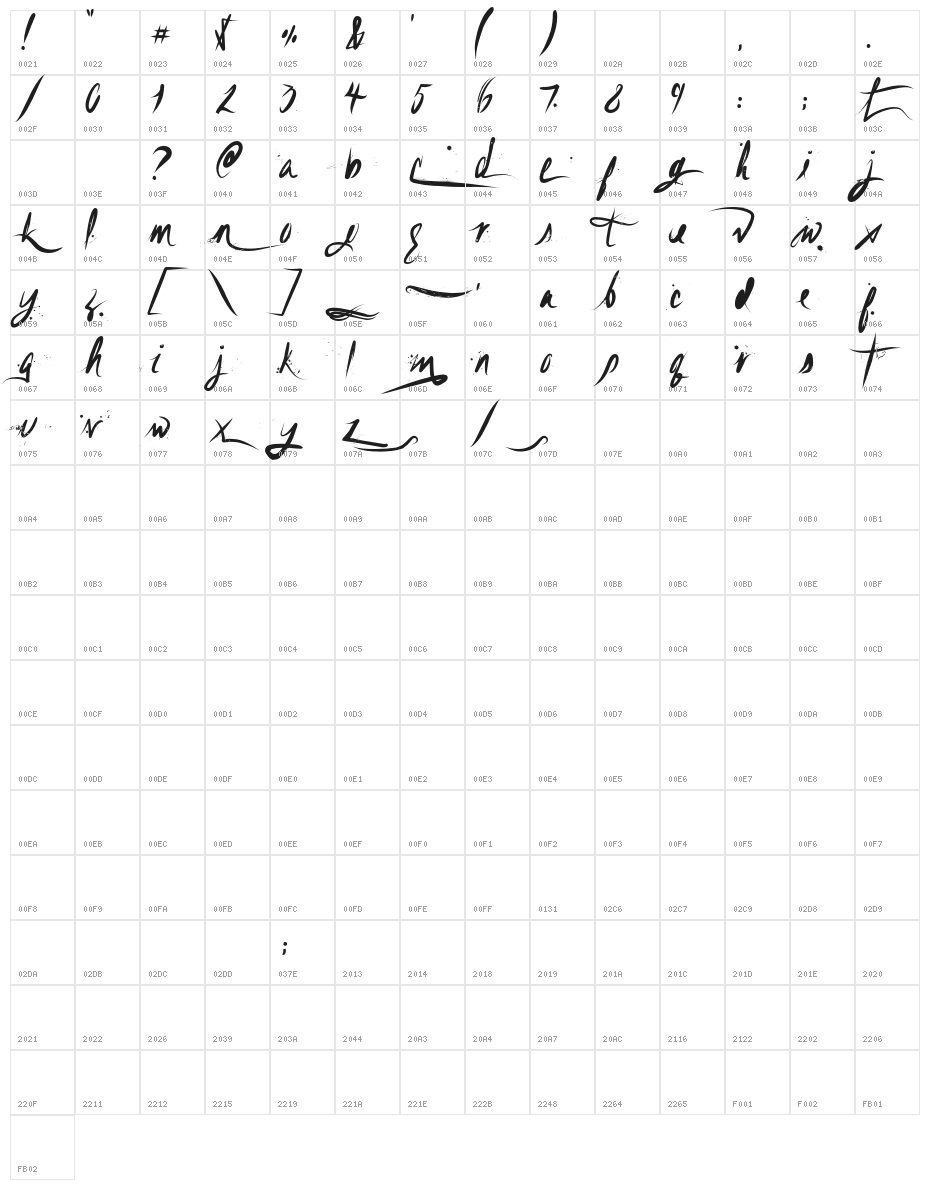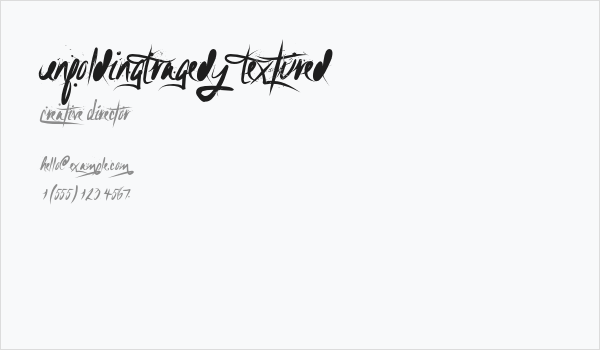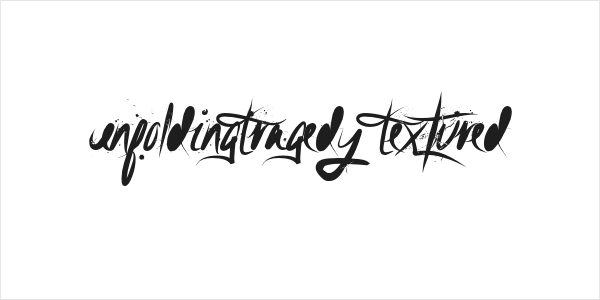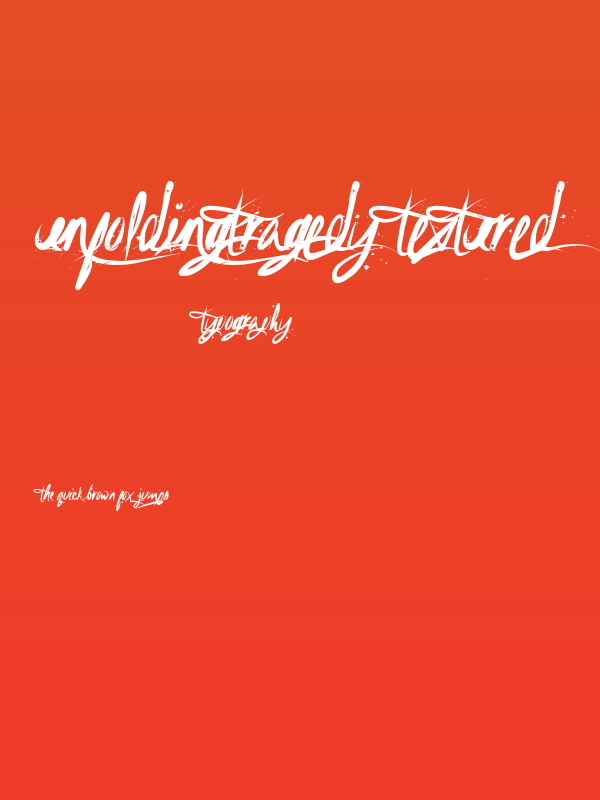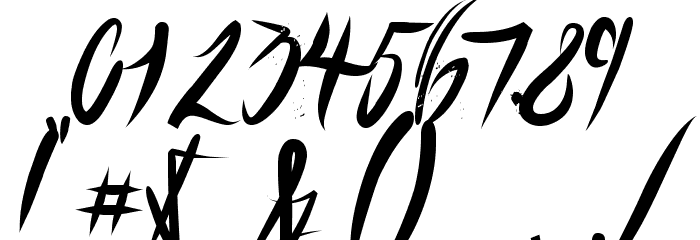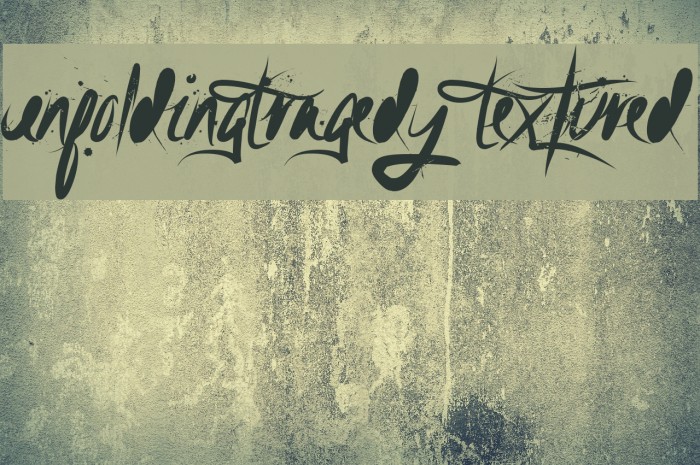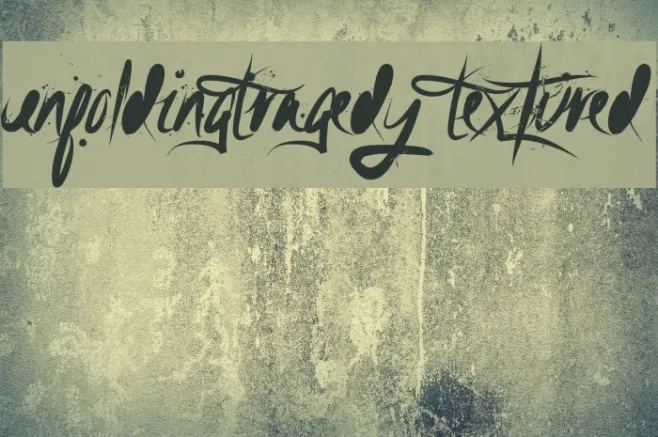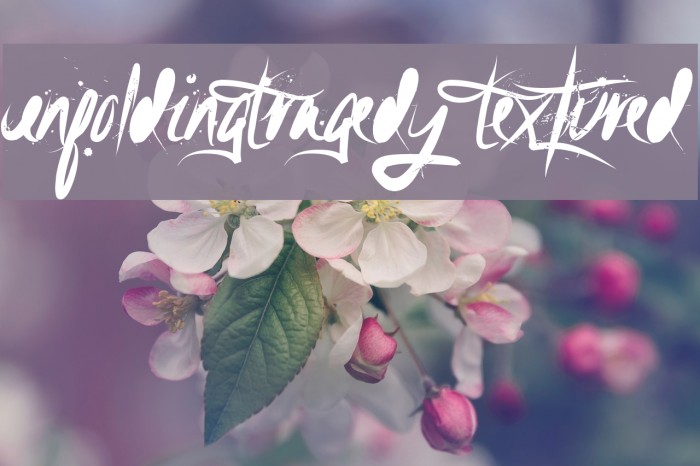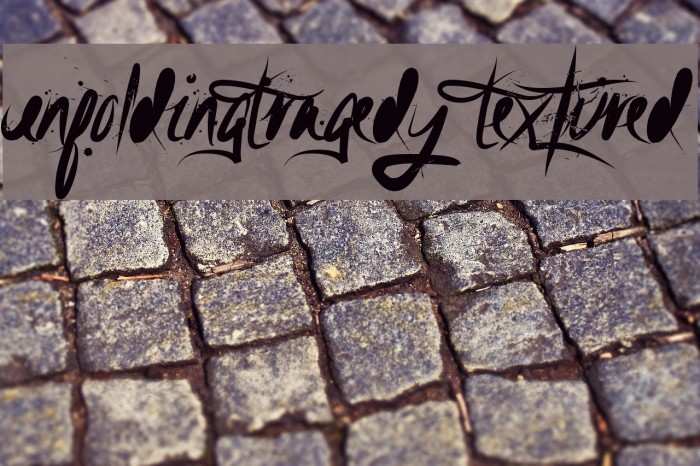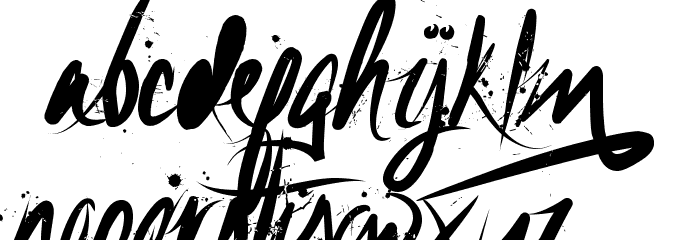
UnfoldingTragedy-Textured Font
UnfoldingTragedy-Textured Description
This font features a dynamic and expressive style, characterized by its textured brush strokes and splatter effects. The letters are crafted with a sense of motion and fluidity, giving them an artistic and rebellious flair. The uppercase and lowercase characters maintain a consistent style, with elongated strokes and varying thickness that add depth and interest. Numbers and special characters are equally expressive, integrating seamlessly with the overall design. The font's unique texture and bold appearance make it stand out, ideal for projects that require a strong visual impact.
| Overall Style | Modern, Artistic |
| Use Case | Headlines, Logos, Artistic projects |
| Proposed Projects | Ideal for album covers, posters, streetwear branding, and artistic projects requiring a bold statement. |